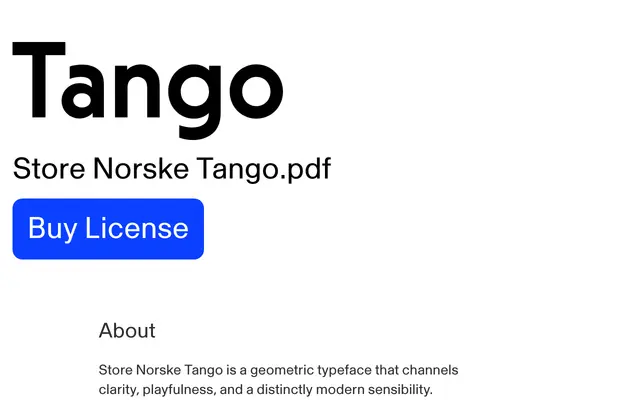
Store Norske Tango
A geometric sans by Arve Båtevik drawing on Intertype Vogue (1930) and the American strand of 1920s European geometric type, built from raw, monolinear forms with minimal optical correction.
Designed by Arve Båtevik for Store Norske Skriftkompani, Tango takes Intertype Vogue as its starting point and departs substantially, prioritising primitive geometric shapes and a monolinear structure where horizontal and vertical strokes hold equal weight, producing an optical suggestion of reverse contrast. Two italic styles are offered: a conventional slant at 10° and a second at 20° that nods to early sans serif conventions, giving designers an expressive range within the family. Its unguarded, naïve quality suits headline work, bold branding and contemporary visual identities across a broad Latin character set covering Western, Central and Northern European scripts including Sami languages.
Tango is a monolinear geometric sans with strictly equal horizontal and vertical stroke weights, inspired by Intertype Vogue (1930) and 1920s European geometric type trends, giving it a raw, primitive quality distinct from humanist or grotesque traditions.